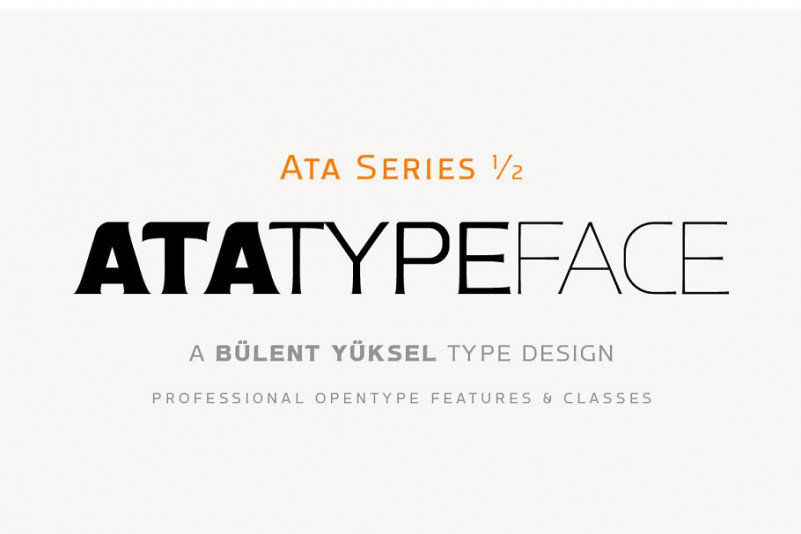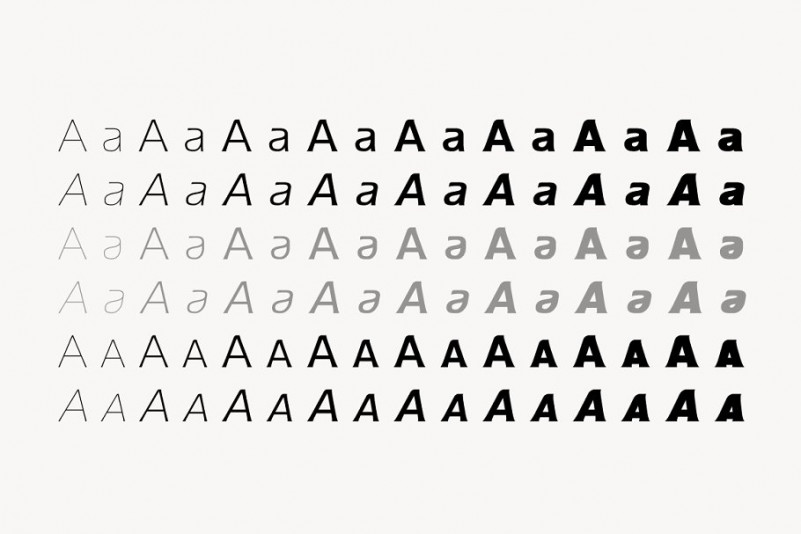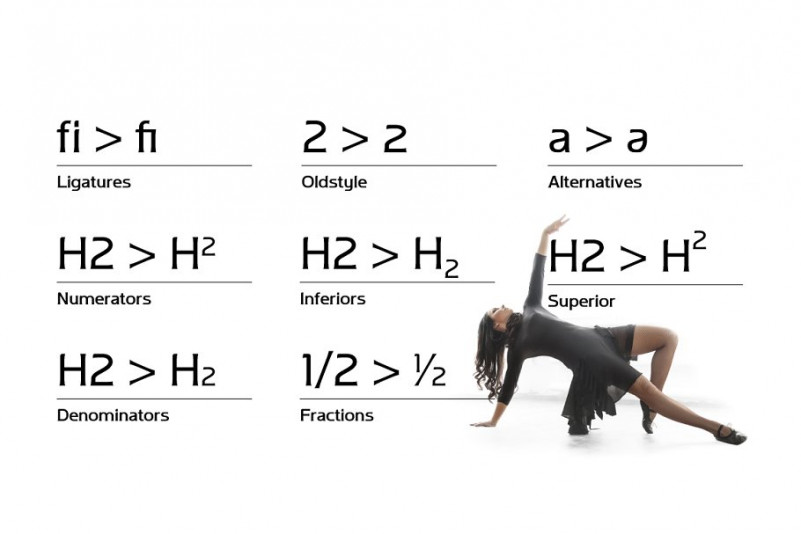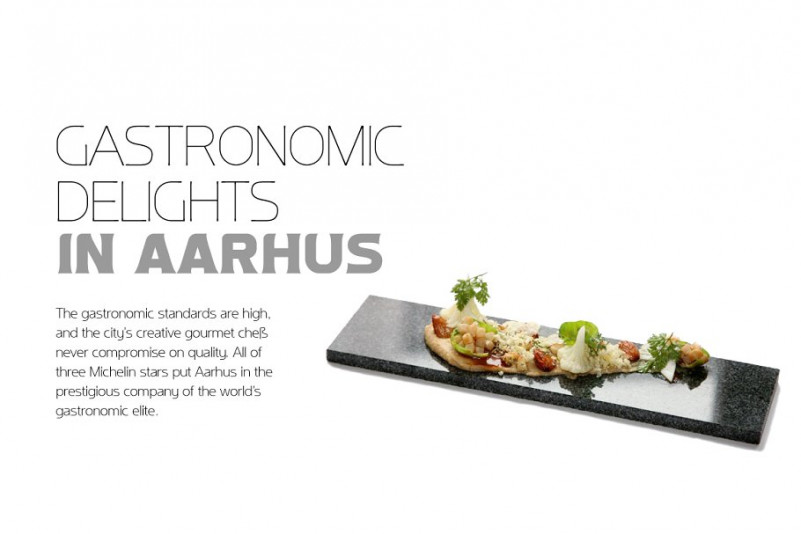
Ata Type Family
This is geometric sans serif typeface with display details and sharp, is a classy, bold upper and lowercase typeface that looks incredible in both large and small settings. It also works wonderfully on its own for logos, quotes, and more! Ata Font Family was designed and shared by BUYUKSEL. ATA TYPEFAMILY, only one of the four other deep end with rounded corners consist of sharpened flat plate. Matched to one another and are optimized for screen. Ideally suited for advertising and packaging, editorial and publishing, logo, branding and creative industries, poster and billboards, small text, wayfinding and signage as well as web and screen design.